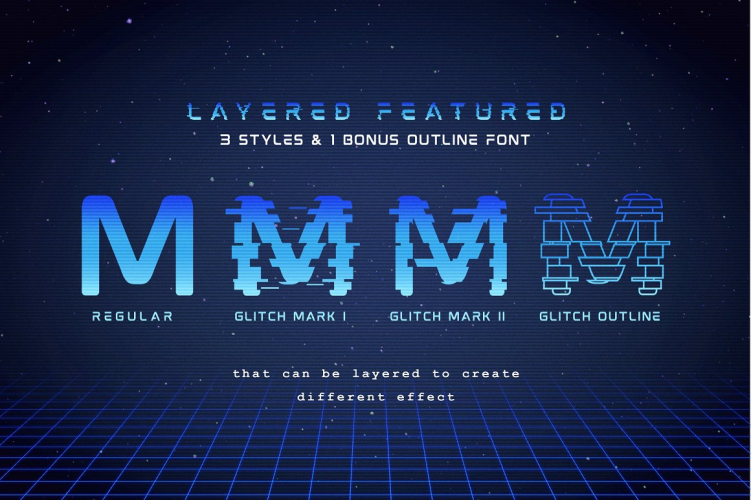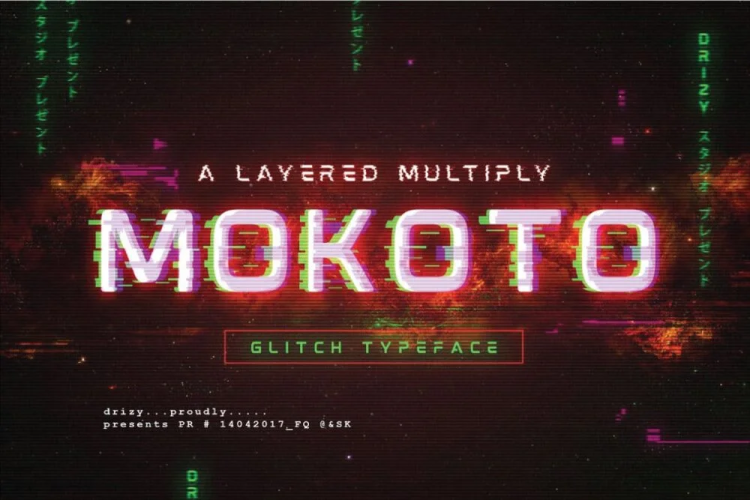
Mokoto Font
Mokoto Font is an experimental font that gives the appearance of a digital glitching effect !! Inspired by modern fonts and slicing images in error systems, to create something different and compelling.
This font makes way for the creativity of each and every one. You can easily add your text using the font layer. Mokoto contains 4 font layers (Regular, Glitch Mark I, Glitch Mark II, and Glitch Outline Regular). You can customize the layer to your need. Modify, give it colours and blend to instantly give futuristic feel and glitch effects.
Mokoto is the ideal display or lead font for designs web, print projects, contemporary posters, forward-looking motion graphics, video games, cover CD Album, and other items like logos, poster/ flyer, branding, packaging, pictograms, etc.
Where Mokoto Font works best
Thumbnails and covers
Mokoto Font is built to be recognised small. Three words, high contrast, and it survives being scaled to a phone screen.
Event and match posters
Display letters at full width make a date and a name readable across a room, which is all a poster has to do.
Merch and streetwear
Heavy display shapes print cleanly on fabric and stay legible when the garment moves.
What kind of work does Mokoto Font suit?